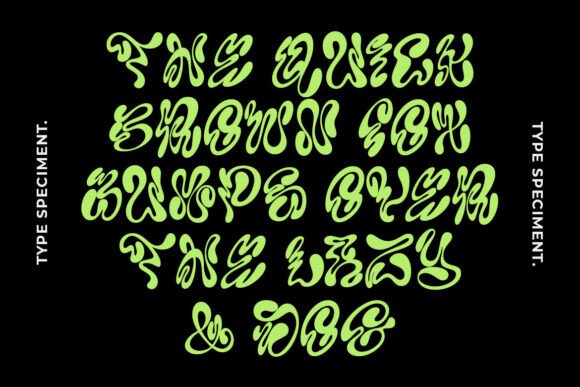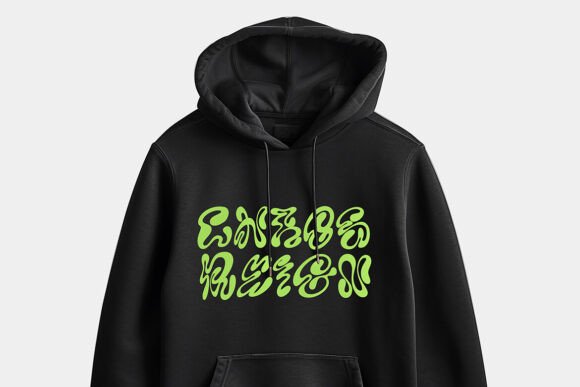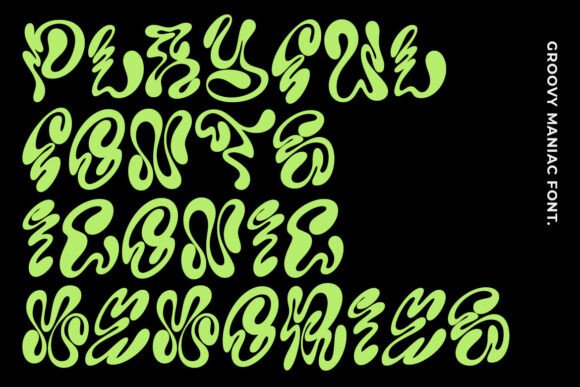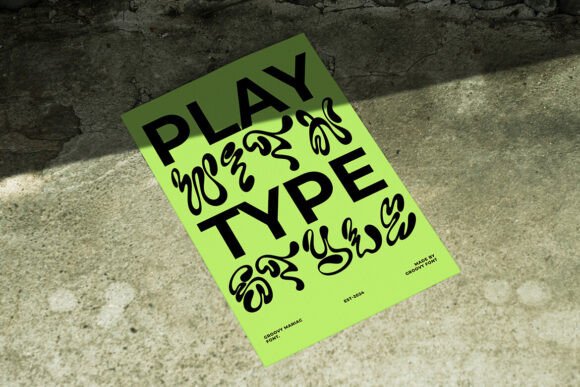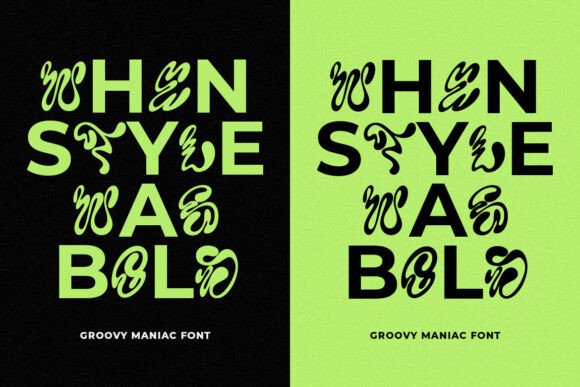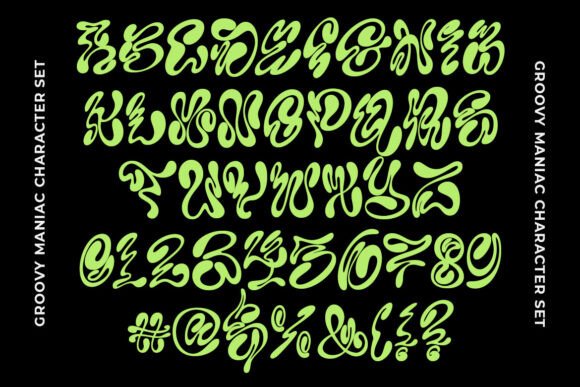
Introducing Groovy Maniac Font: Unleash Your Creativity with this Delightfully Weird Display Font
Are you tired of using the same old fonts in your designs? Do you want to add a touch of quirkiness and individuality to your projects? Look no further than Groovy Maniac Font! This delightfully weird display font is sure to bring a sense of fun and playfulness to your designs, making them stand out from the crowd.
What Makes Groovy Maniac Font So Special?
Groovy Maniac is a decorative typeface that features winding, curved characters that add a playful and unconventional touch to your designs. Its unique and whimsical charm makes it perfect for projects that call for a bit of quirky creativity. Whether you’re designing a logo, a poster, or a social media graphic, Groovy Maniac Font is sure to bring a smile to your audience’s faces.
Key Features of Groovy Maniac Font
- Unique and Whimsical Design: Groovy Maniac Font features winding, curved characters that add a playful and unconventional touch to your designs.
- Delightfully Weird: This font is perfect for designers who want to add a bit of quirkiness to their projects.
- Cheerful Feel: Groovy Maniac Font exudes a distinctive and cheerful feel that’s sure to brighten up your designs.
- Perfect for Creative Projects: This font is ideal for designers, crafters, and artists who want to add a touch of individuality to their work.
How to Use Groovy Maniac Font in Your Designs
Groovy Maniac Font is perfect for a variety of design projects, including:
- Logos and Branding: Add a touch of quirkiness to your logo and branding with Groovy Maniac Font.
- Posters and Flyers: Create eye-catching posters and flyers with this unique and playful font.
- Social Media Graphics: Add a bit of personality to your social media graphics with Groovy Maniac Font.
- Invitations and Party Decor: Use Groovy Maniac Font to create fun and playful invitations and party decor.
Why Choose Groovy Maniac Font?
With so many fonts available, why choose Groovy Maniac Font? Here are just a few reasons:
- Stand Out from the Crowd: Groovy Maniac Font is a one-of-a-kind font that’s sure to make your designs stand out.
- Add a Touch of Personality: This font allows you to add a bit of personality and whimsy to your designs.
- Perfect for Creative Projects: Groovy Maniac Font is ideal for designers, crafters, and artists who want to add a touch of individuality to their work.
If you’re looking for a font that will add a touch of quirkiness and individuality to your designs, look no further than Groovy Maniac Font. With its unique and whimsical design, this font is perfect for projects that call for a bit of creative flair. So why wait? Download Groovy Maniac Font today and unleash your creativity!
Whether you’re a designer, crafter, or artist, Groovy Maniac Font is sure to bring a sense of fun and playfulness to your work. So go ahead, get creative, and make your designs stand out with Groovy Maniac Font!